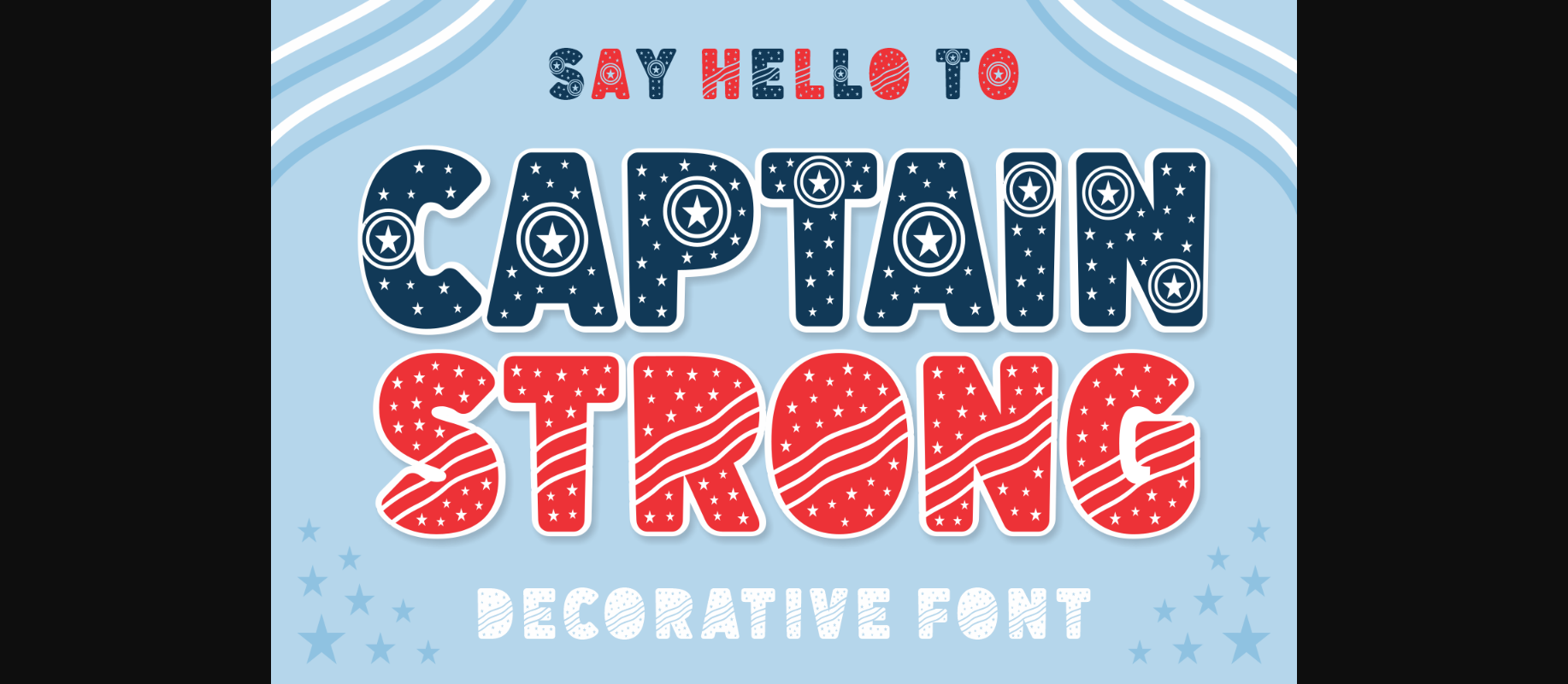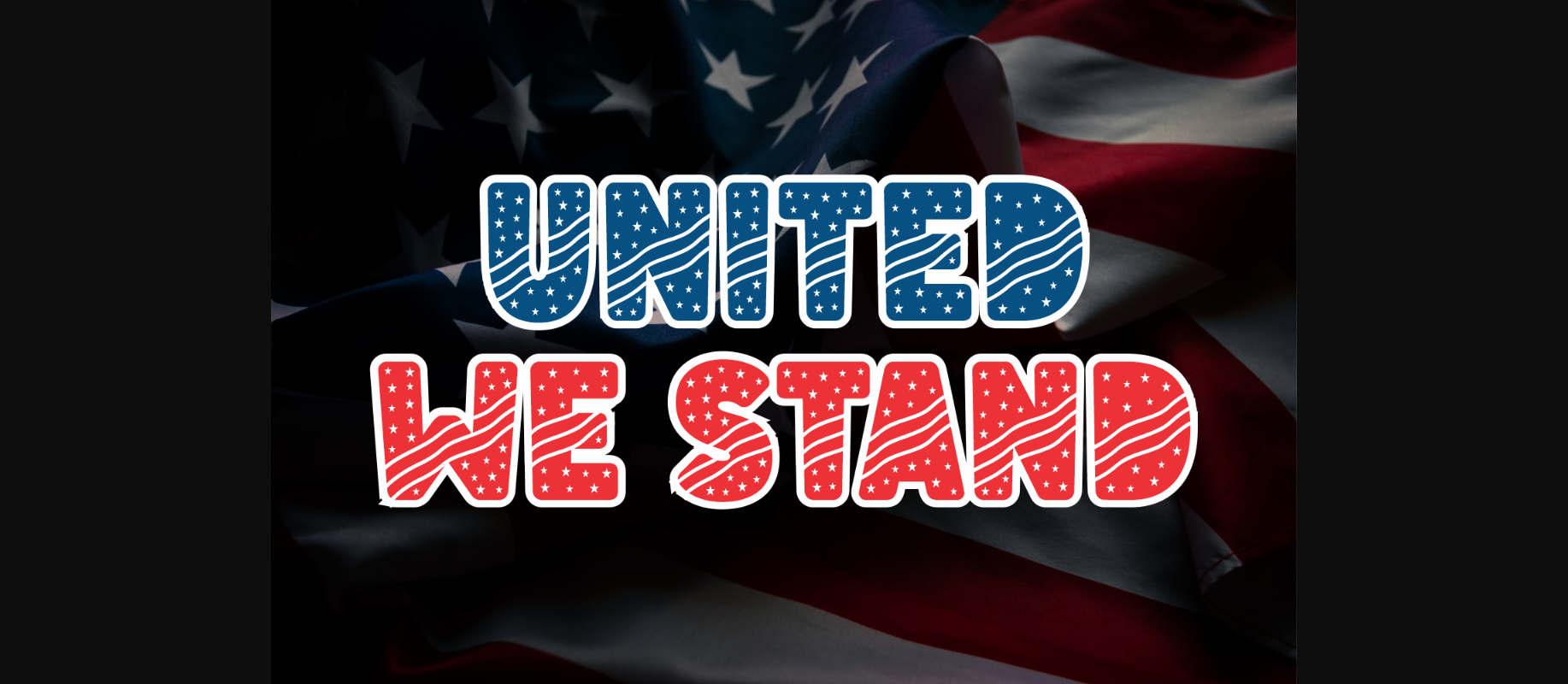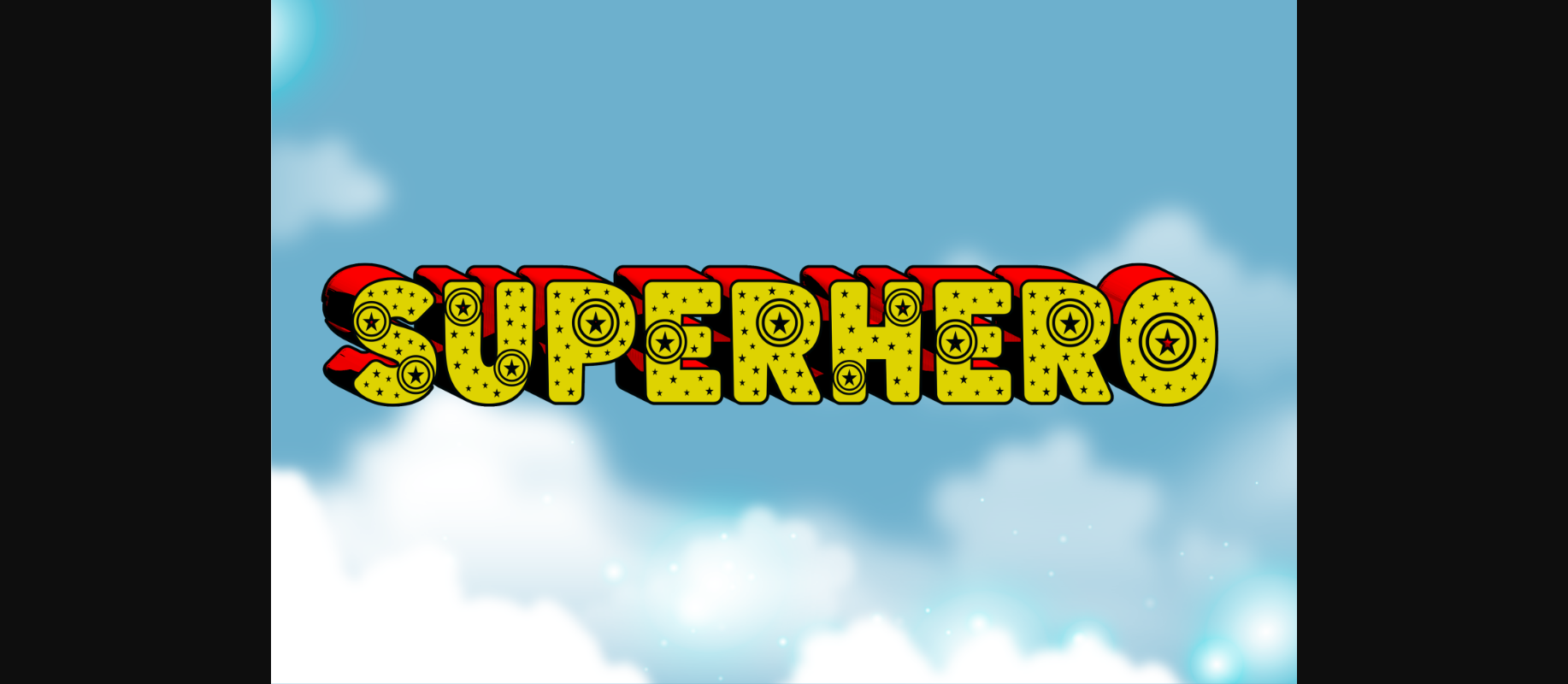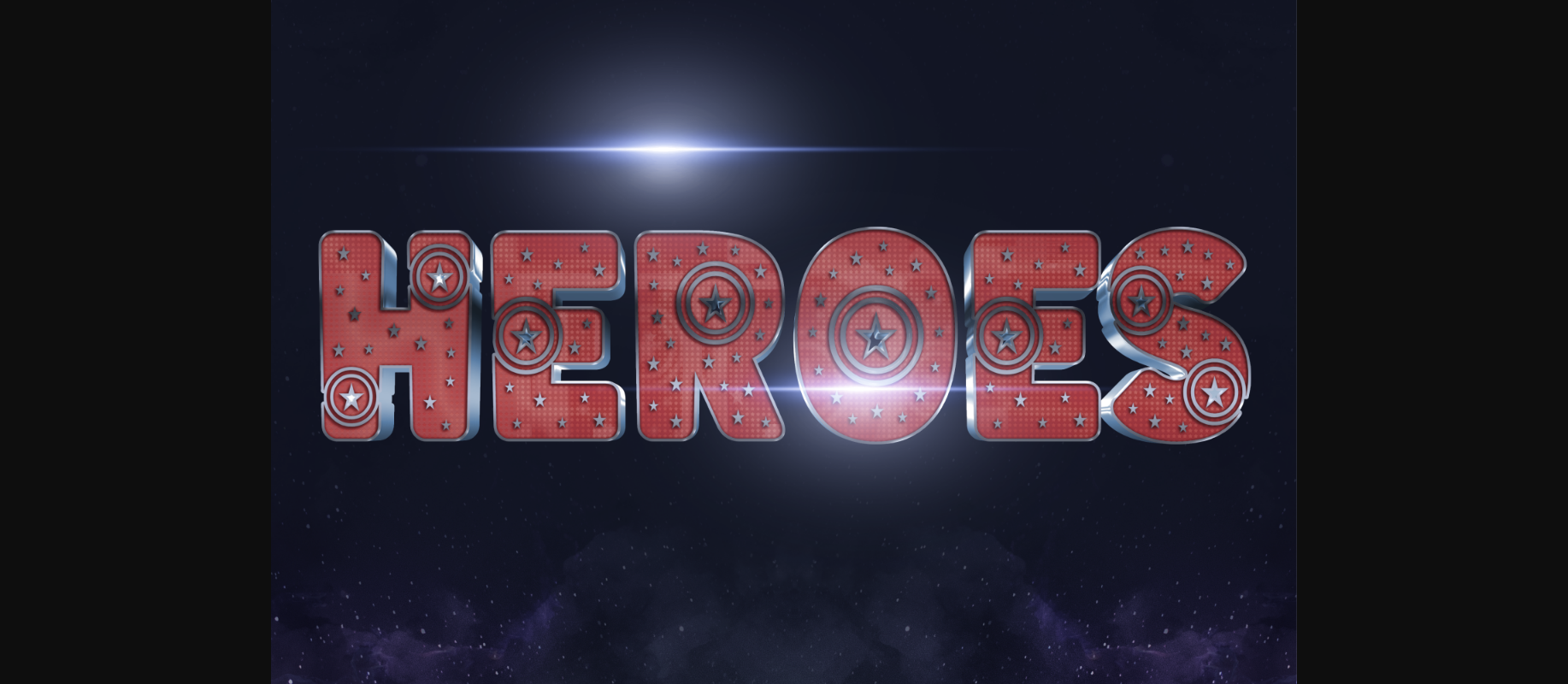
Captain Strong Font
About Captain Strong Font
Captain Strong is a beautiful decorative font inspired by the American flag and the 4th of July. These characters’ set includes uppercase letters and numbers decorated with stars and stripes. You can use this lovely font for American cards, holiday decorations, quotes, movie titles, book covers, posters, and much more!